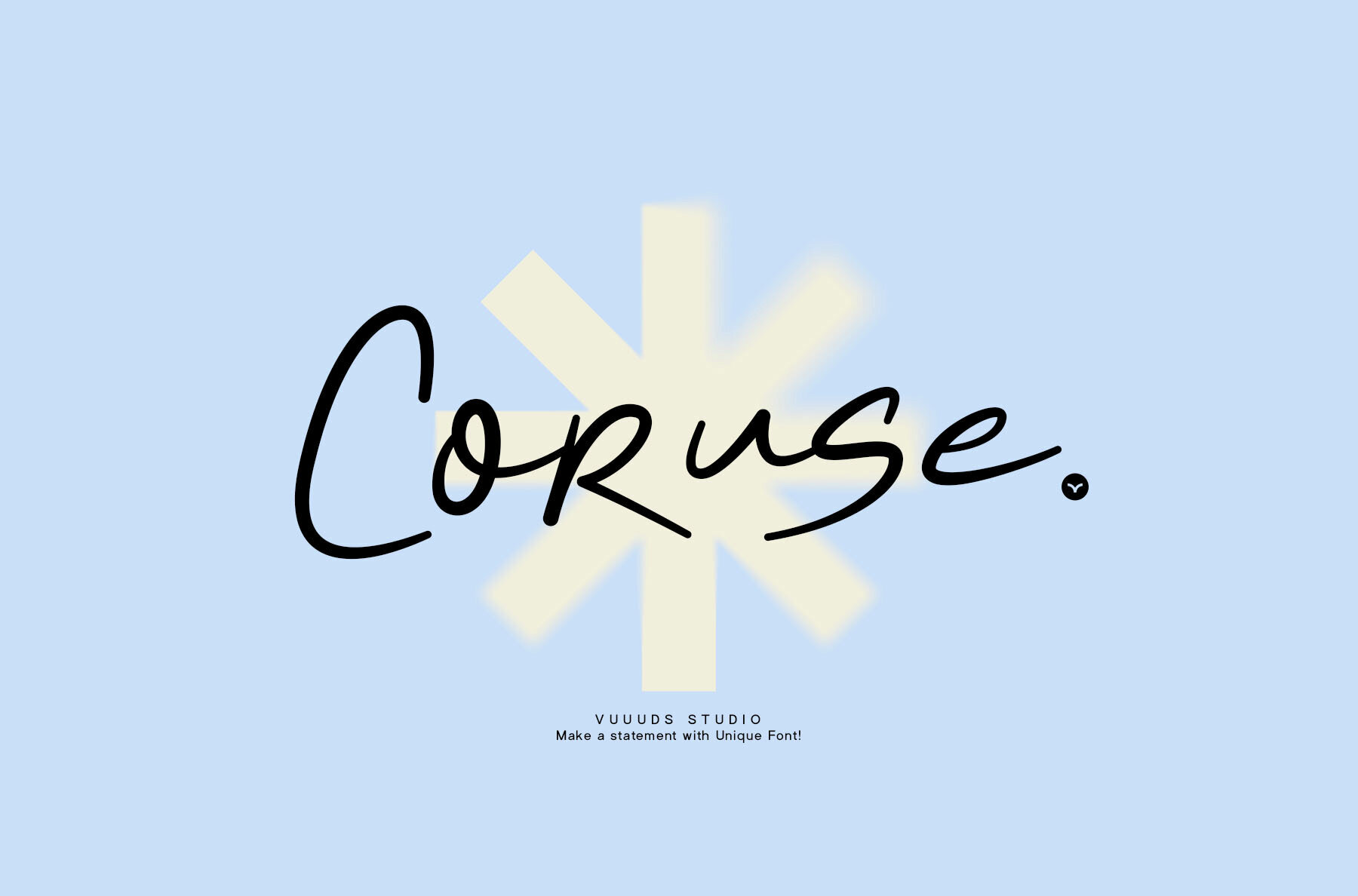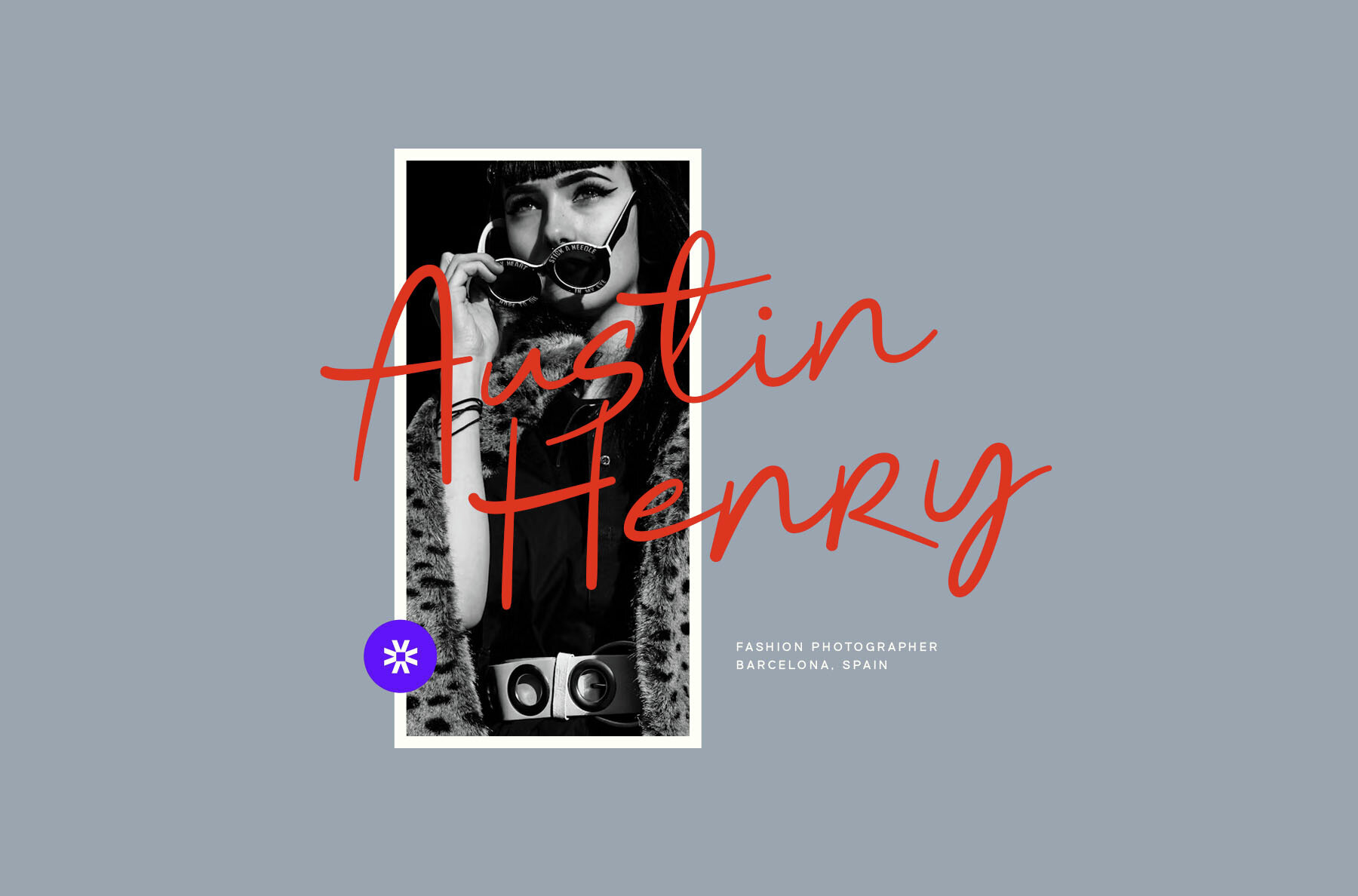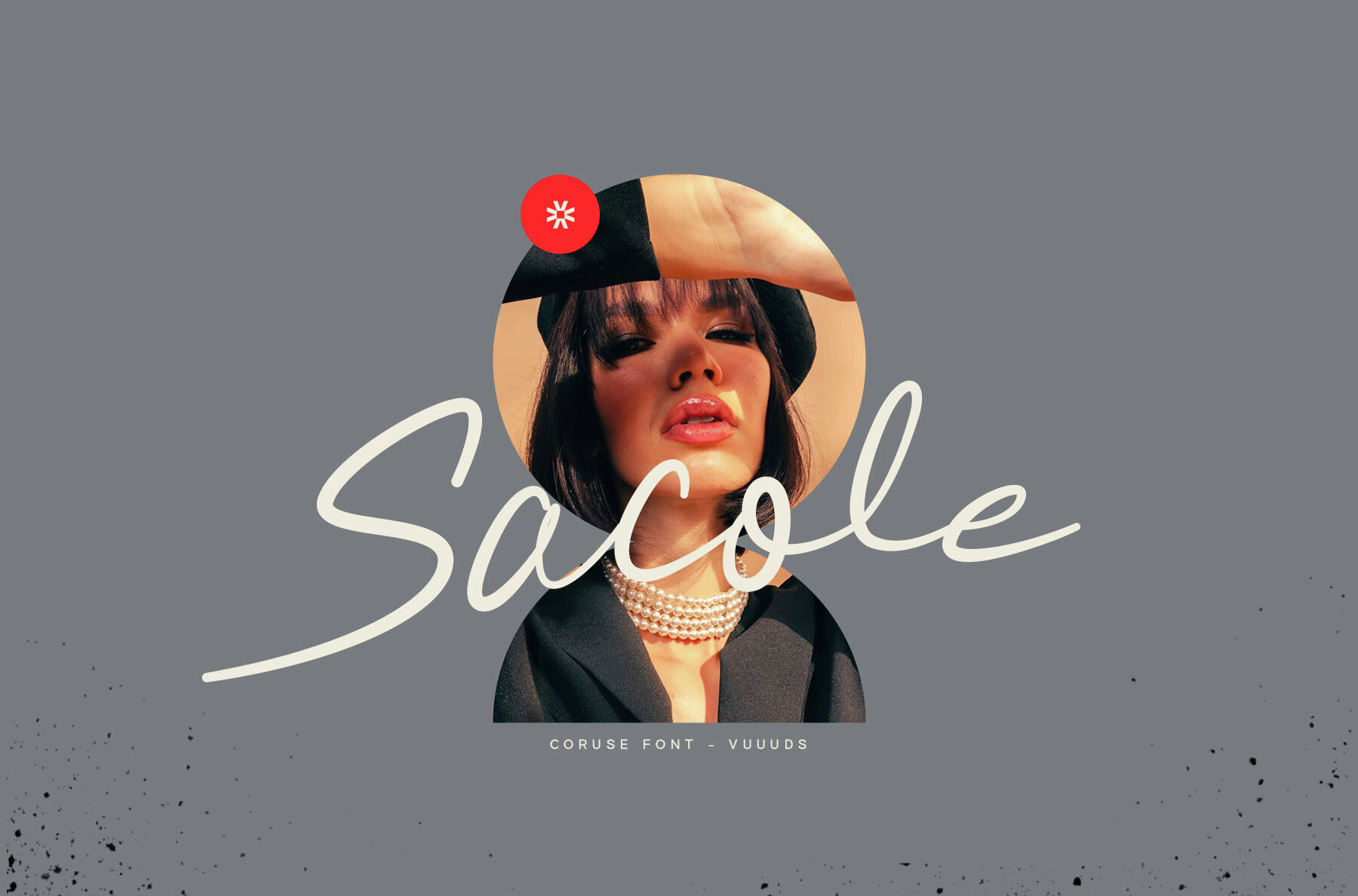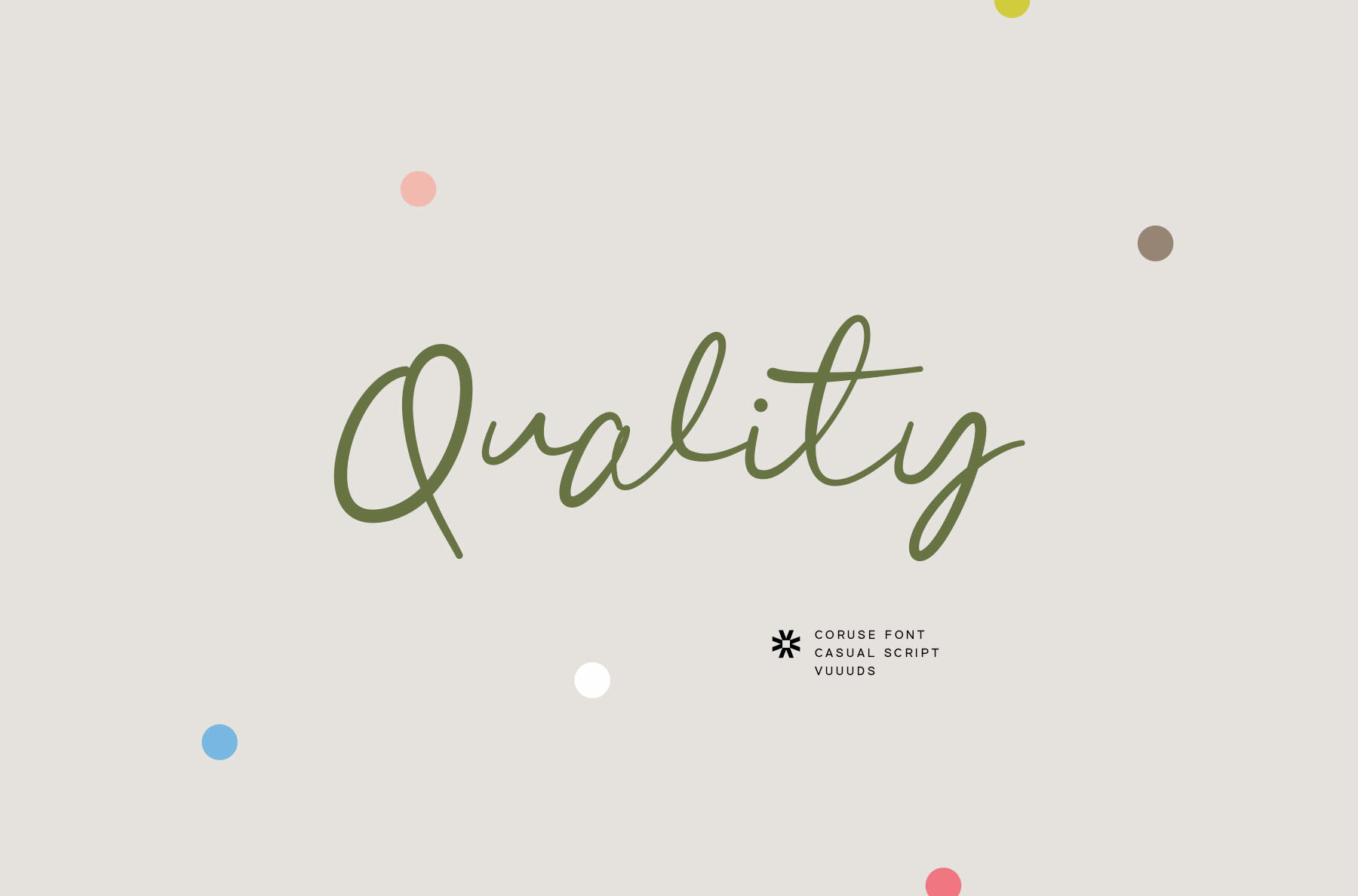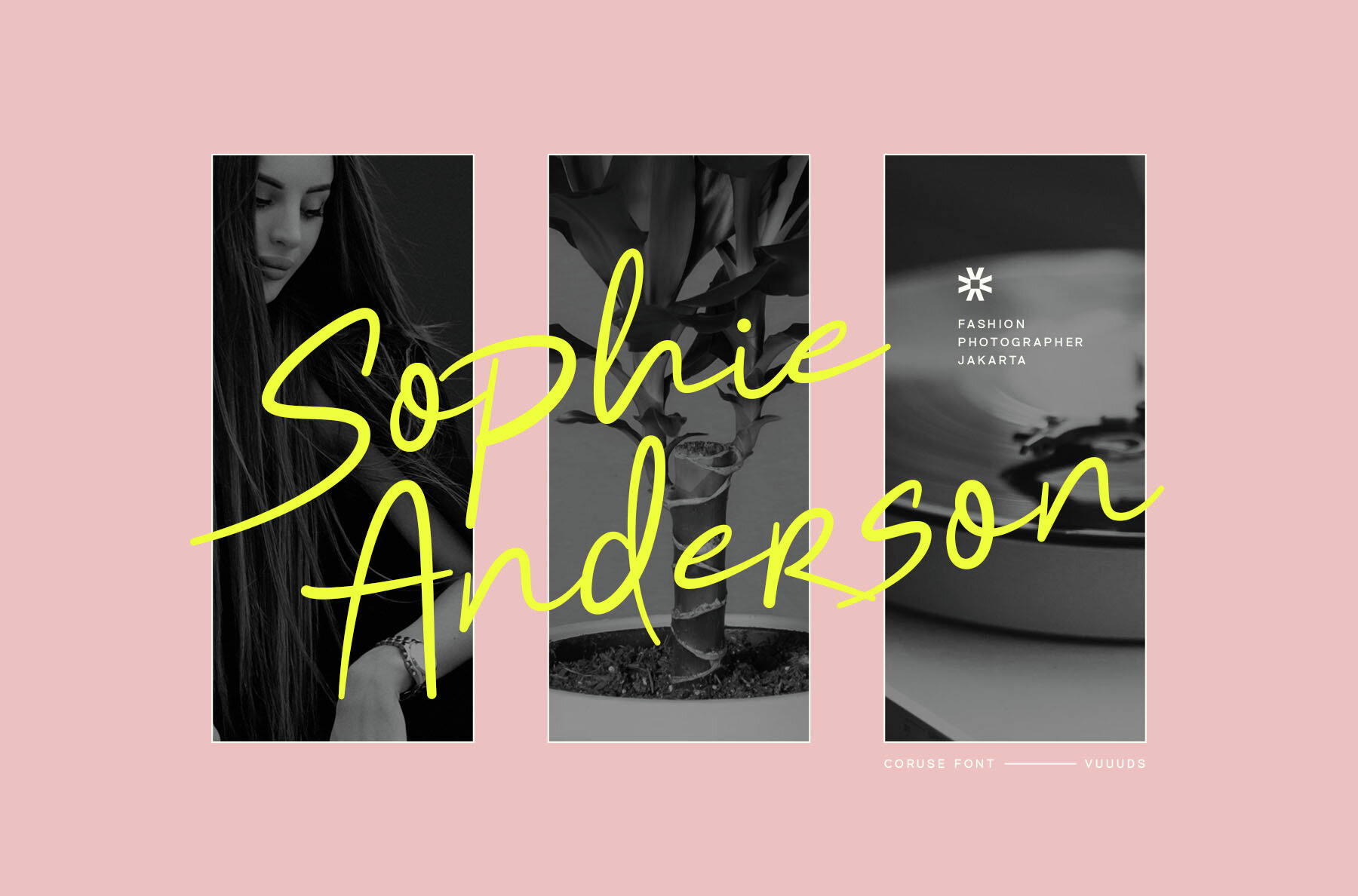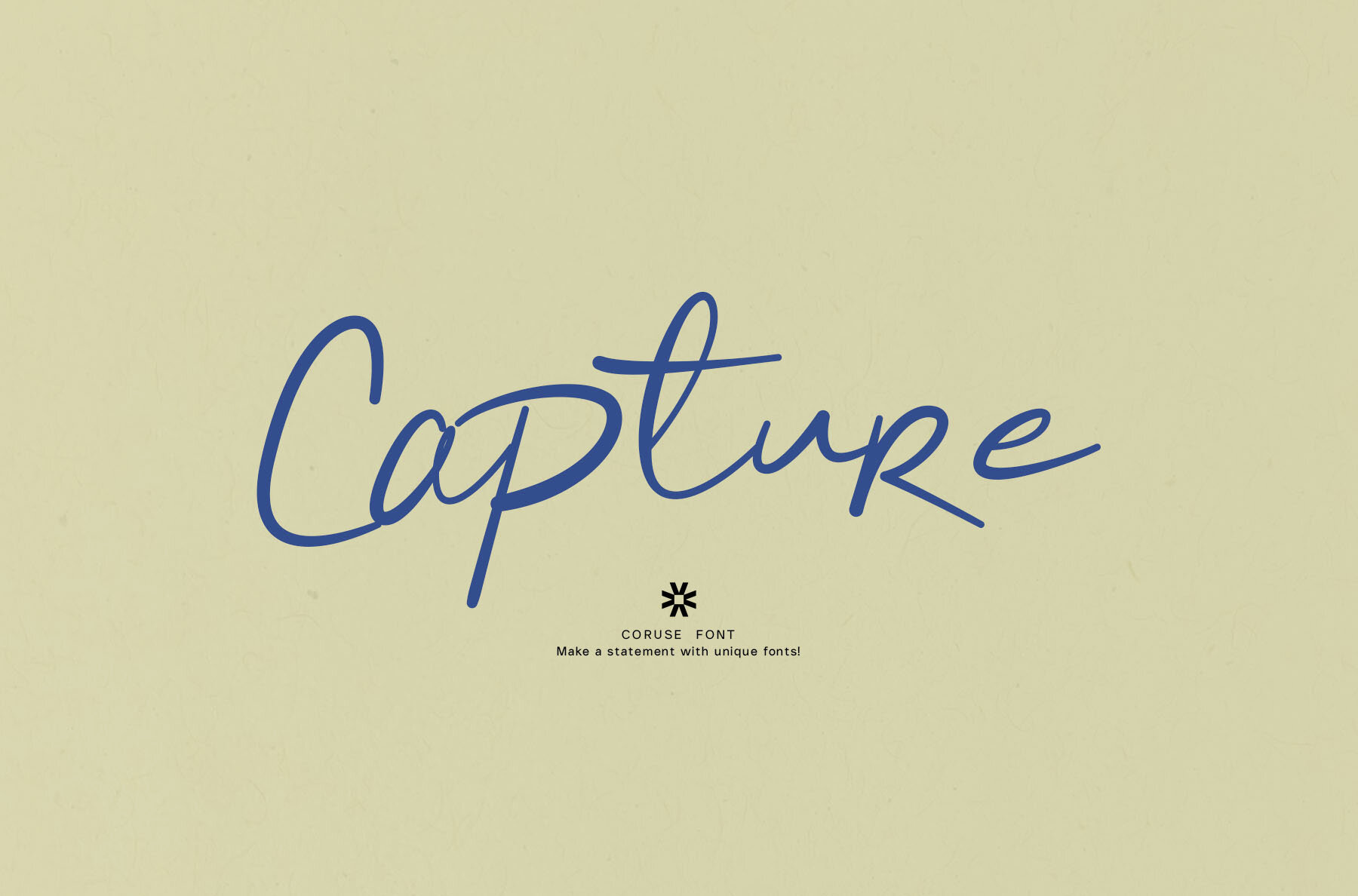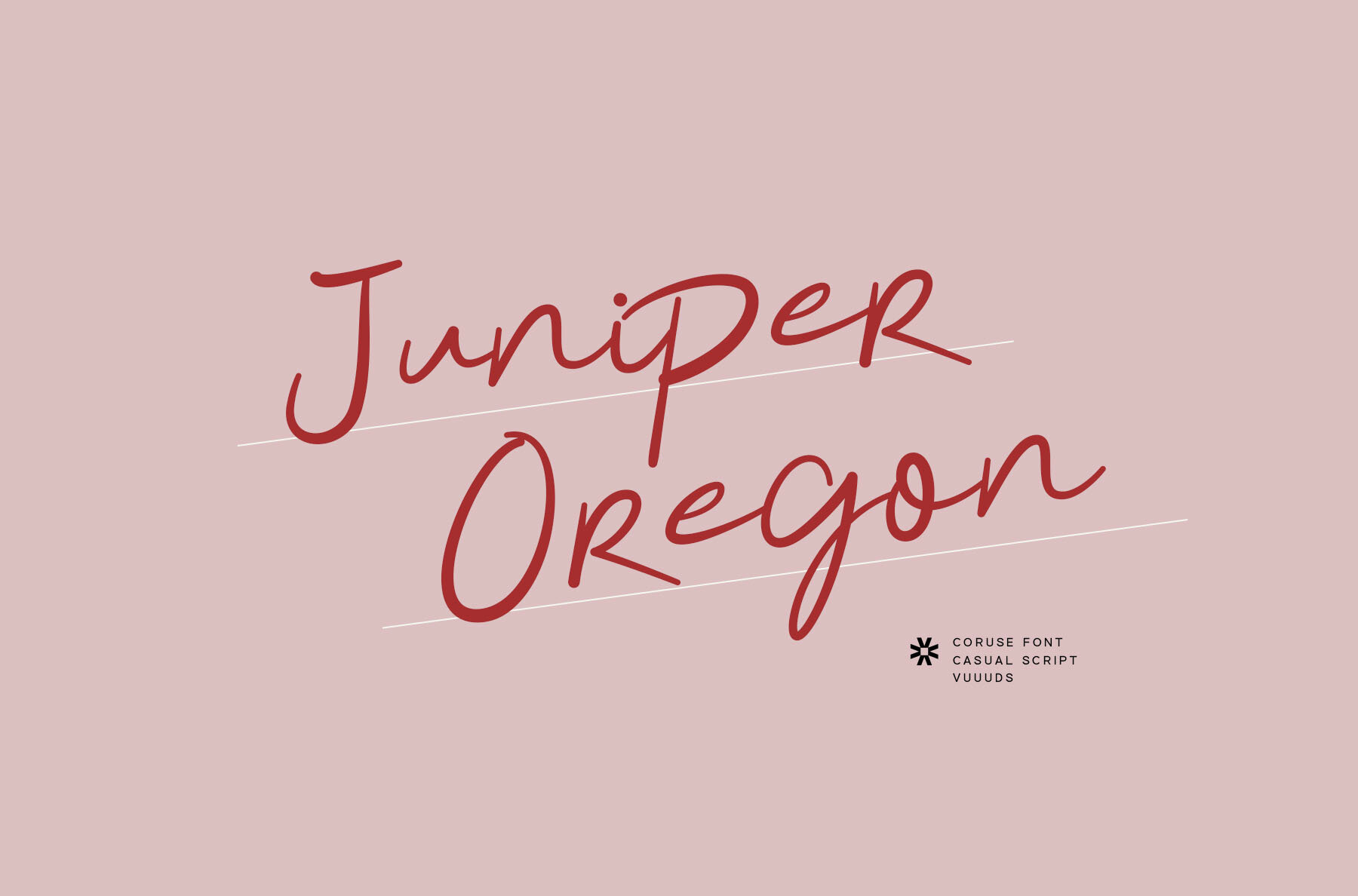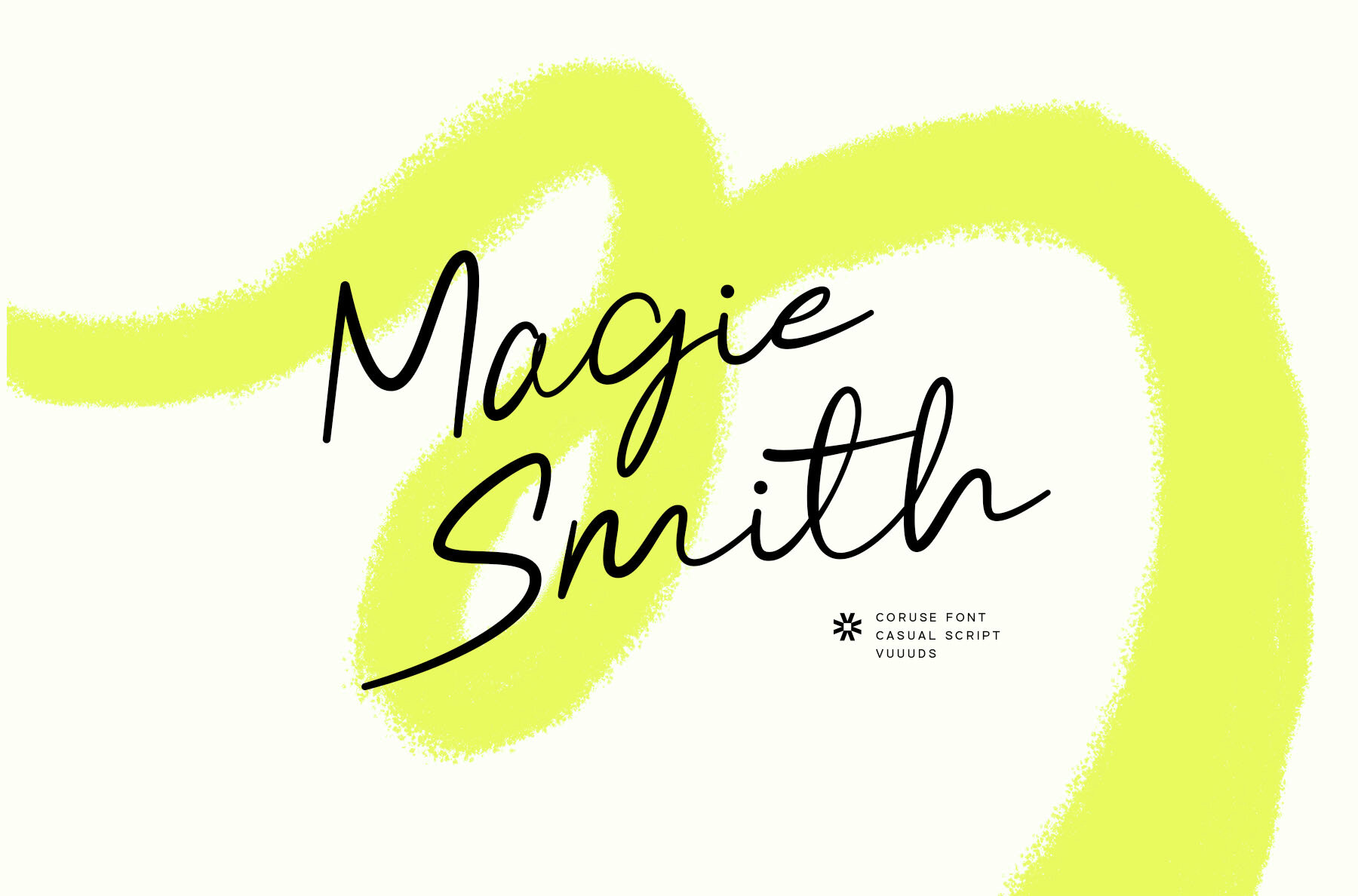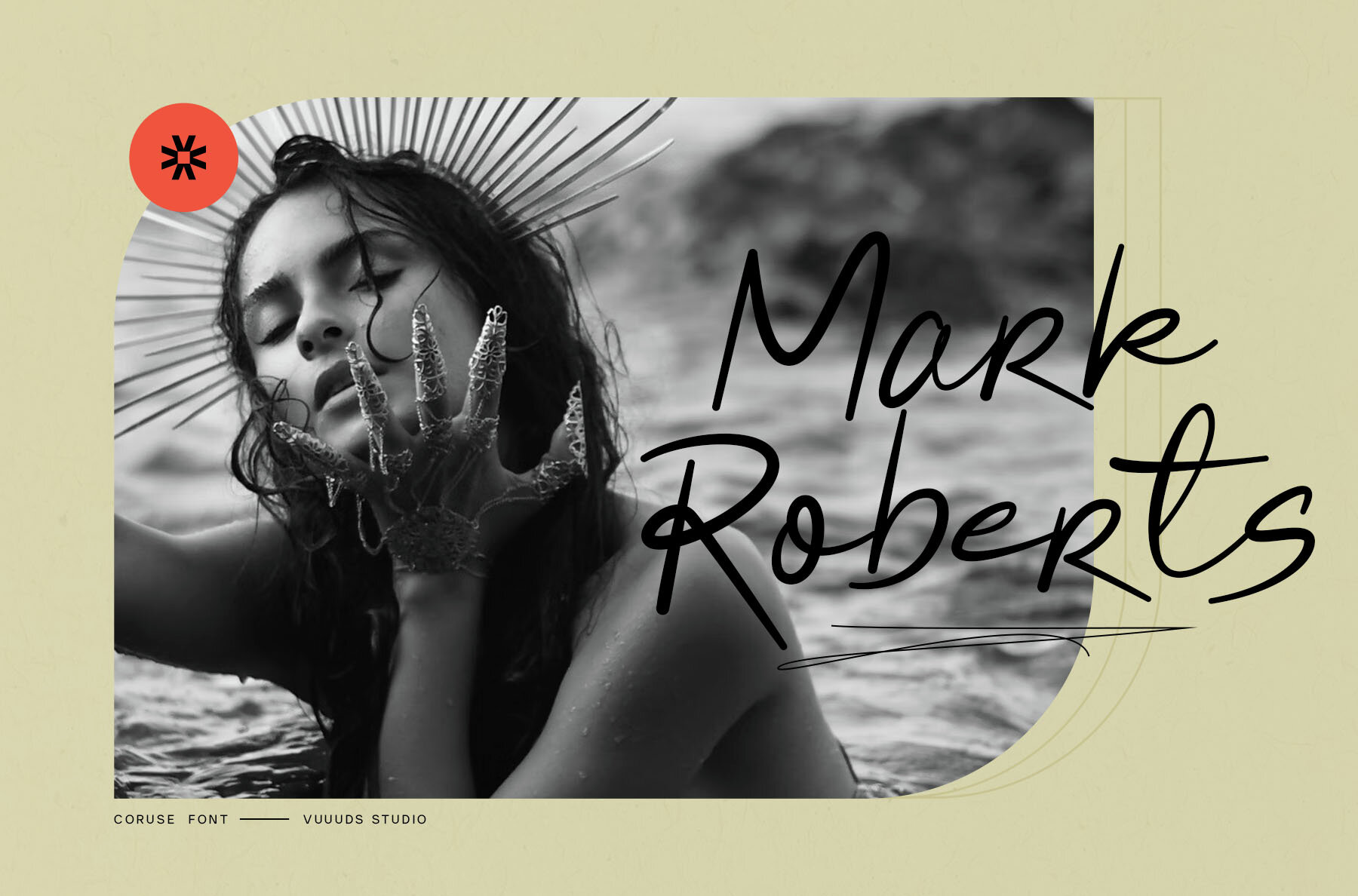
Coruse Font
Coruse
Coruse is a modern handwriting font designed with unique craftsmanship in mind. Each letter has been carefully crafted to bring a distinct charm to your designs. This font is enhanced by the inclusion of beautiful alternate glyphs, which can be utilized to add variety and flair to your projects. Users can access these alternate features through Font Book on Mac or the Windows Character Map, with a helpful tutorial included in the package.
In addition to its aesthetic appeal, Coruse supports a wide range of foreign languages, making it versatile for global applications. The font accommodates special characters and diacritics for languages such as French, Spanish, German, and more. With its elegant style and comprehensive character support, Coruse is an excellent choice for designers looking to incorporate a personalized touch into their work.